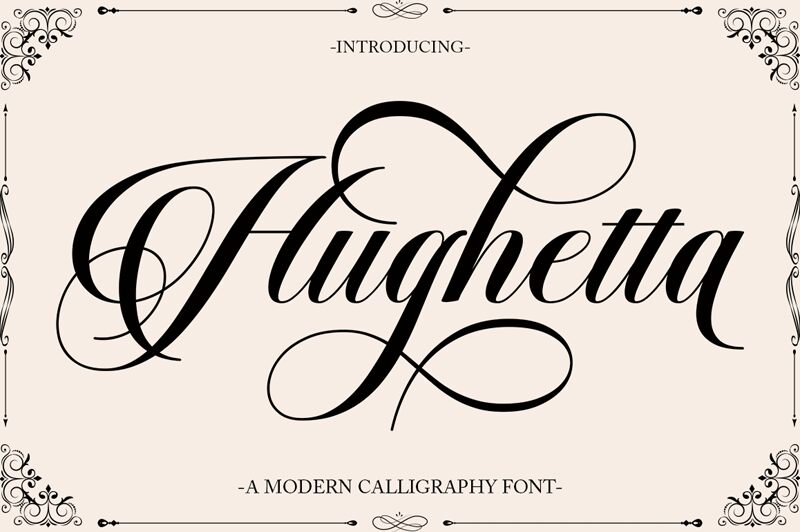
Hughetta font, designed by Has Rizal, is a free personal use calligraphy font that brings a touch of elegance and charm to your creative projects. It embraces a modern, decorative style with ornamental traits, ideal for adding an artistic and luxurious touch to your visuals. Classic beauty comes out magnificently in a wide range of unique characters that are serious and formal yet highly decorative. This font does look just like the handwriting of a sophisticated writer so you can now enjoy the amazing clarity of creative major headlines with this font.
Hughetta is the most ideal for use in wedding and party invitations, postcards, and branding designs. Other usages can be letterheads, signature logos, apparel designs, book covers, cosmetics, and more. Posters, flyers, and social media posts can easily be crafted with elegance and detail when this font is imported.